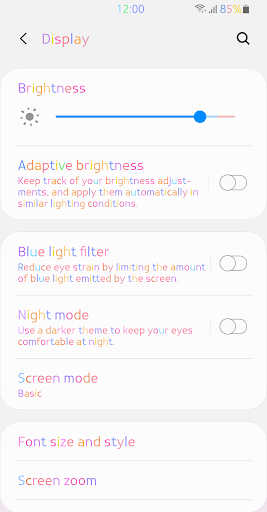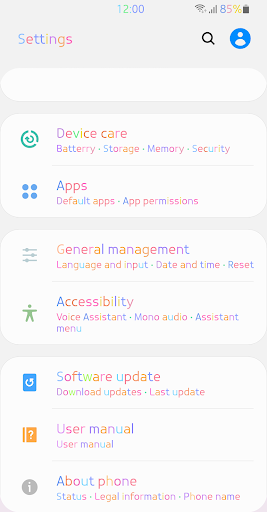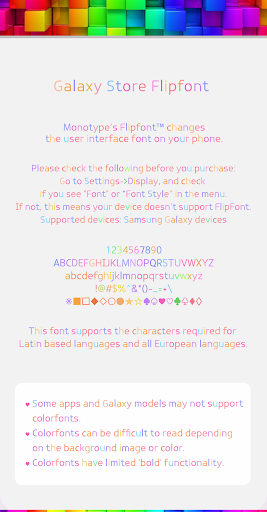
ZF Wannaes
This font is a sans-serif font with my own sensibility.
The center of gravity of the text line is placed at the top, making it easier to read the text.
The modern shape made up of straight and diagonal lines shows a sophisticated style.
Additionally, colors were added to each letter to express my unique emotions.
Totally my style.
My type.
Beautiful and attractive that keeps attracting attention, this is my favorite emotional font.